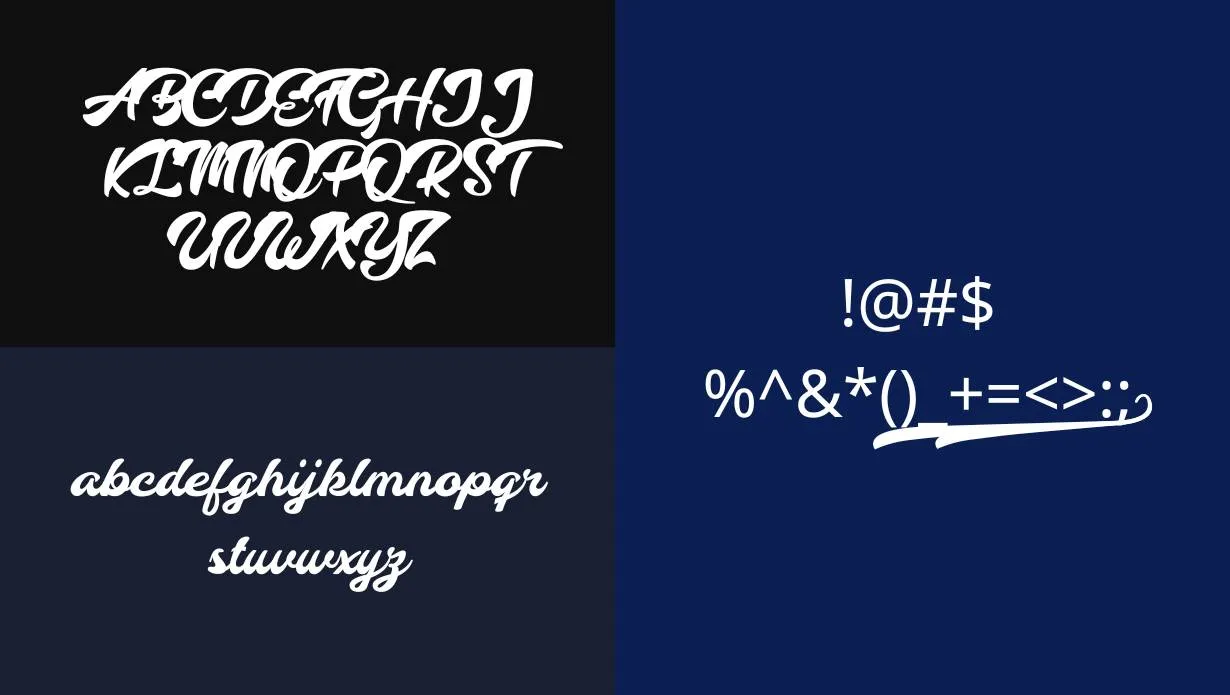
Fantastic Font is a whimsical and playful typeface that adds a touch of magic to your designs. This font is a brush font that belongs to the script fonts.
Its enchanting letters make it perfect for fantasy themes. Ideal for children’s book covers, fantasy-themed products, or any project that aims to captivate with a sense of wonder.
Fantastic Font Family
This amazing typeface is designed by Hustle Supply Co. They have also designed many famous fonts. Brush Script Font is the best pairing font for this typeface.